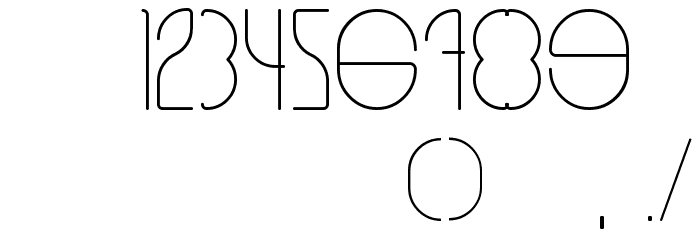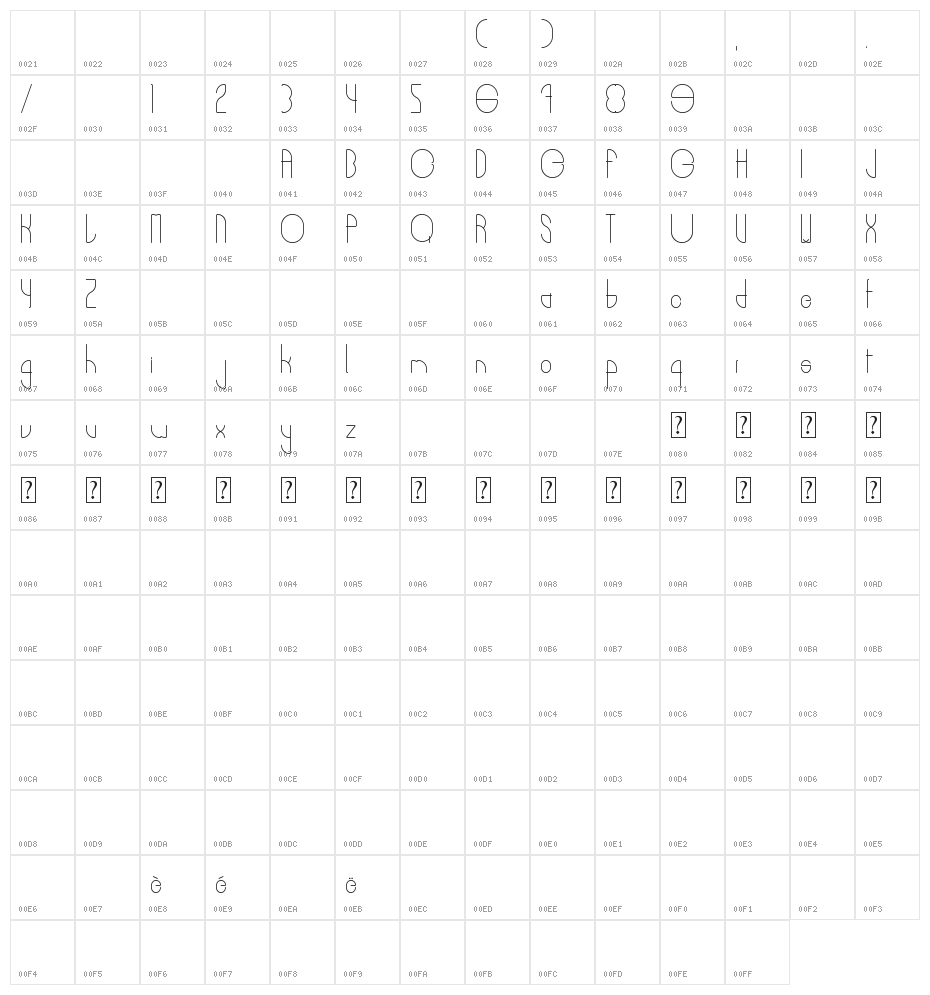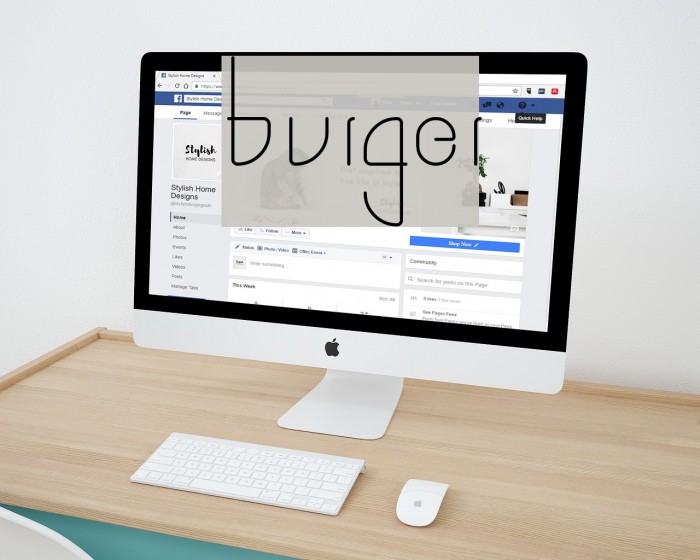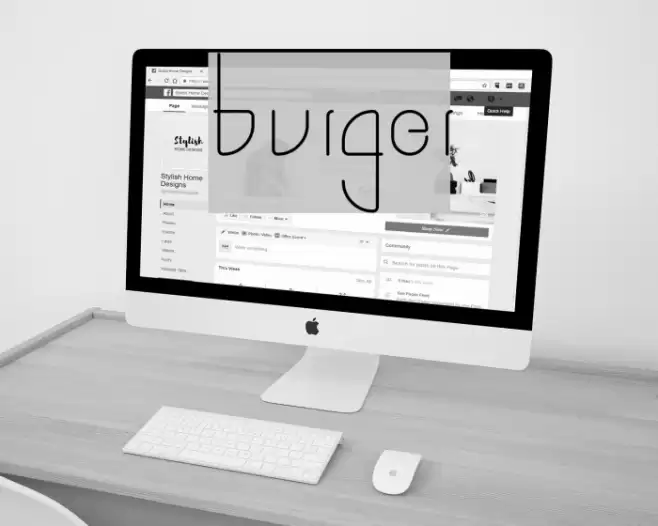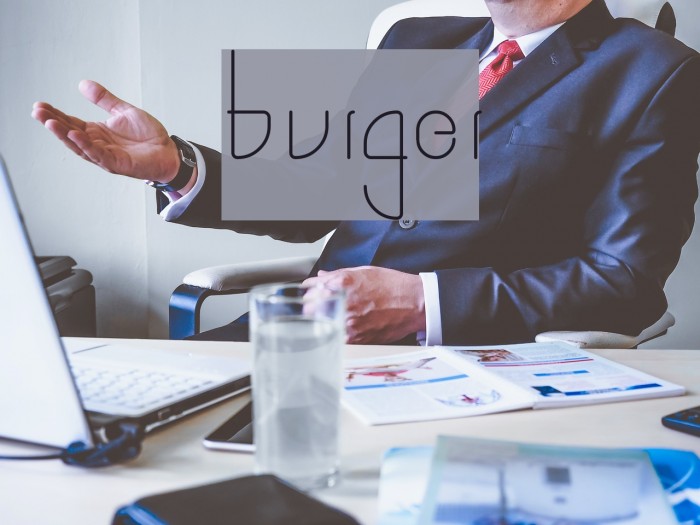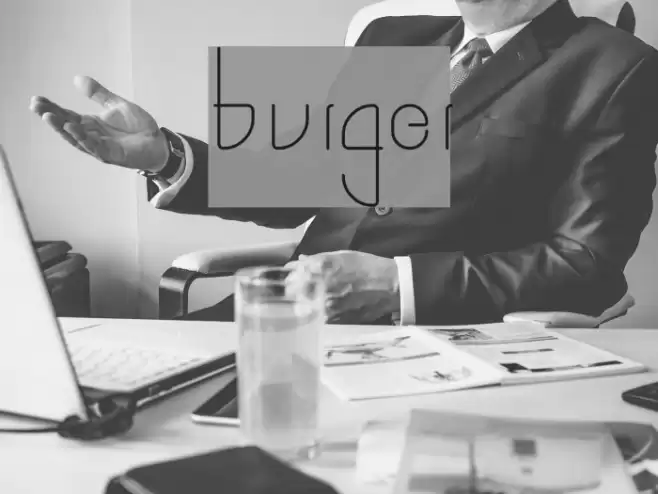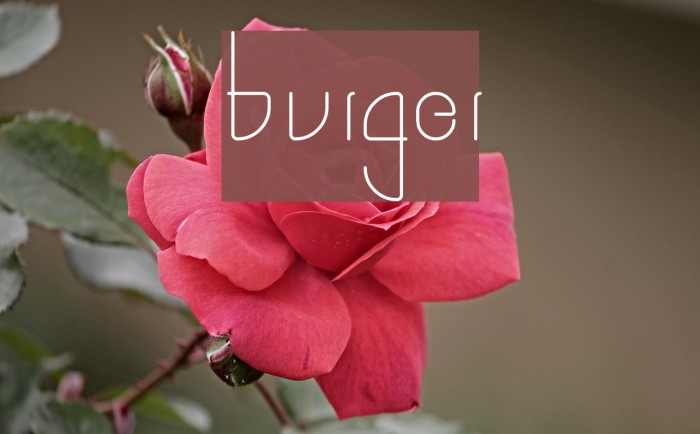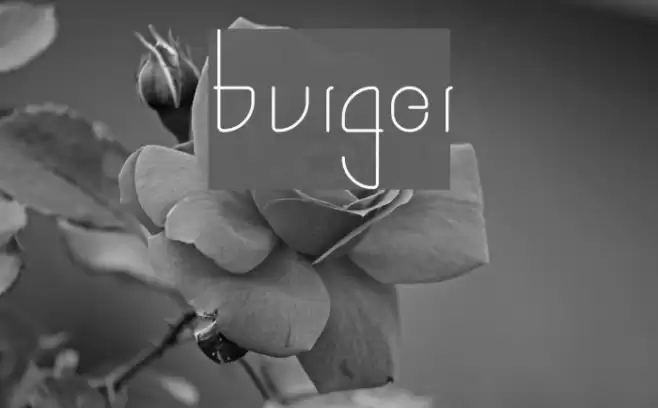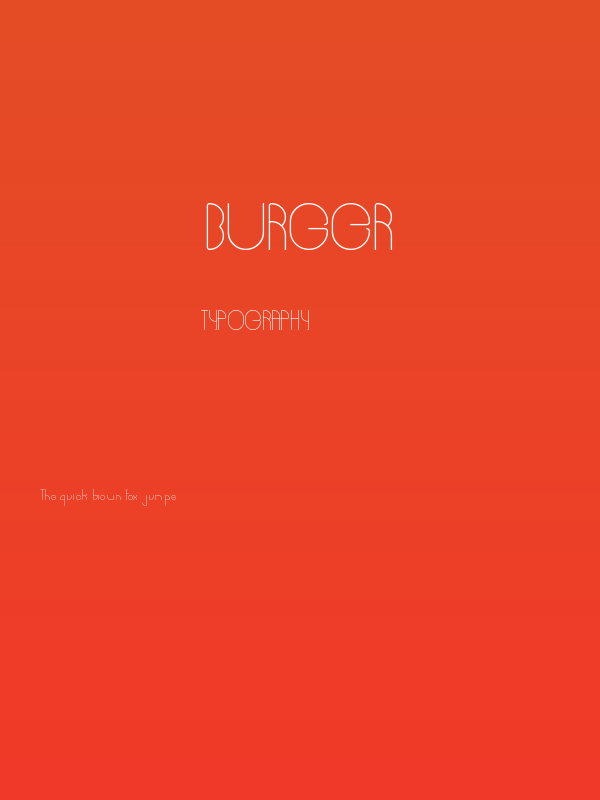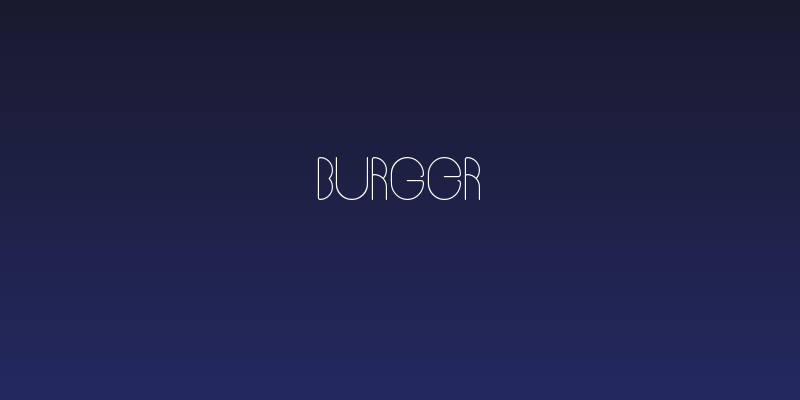
burger Font
burger Description
This font features a unique and modern design with a geometric and minimalist approach. The characters are composed of thin lines with rounded edges, creating an airy and open feel. The uppercase and lowercase letters maintain a consistent style, with some characters like 'G', 'Q', and 'a' showcasing creative loops and curves. The numbers follow the same design principles, offering a cohesive look across all characters. Special characters are also included, maintaining the font's distinct style. This font is ideal for projects that require a contemporary and stylish appearance.